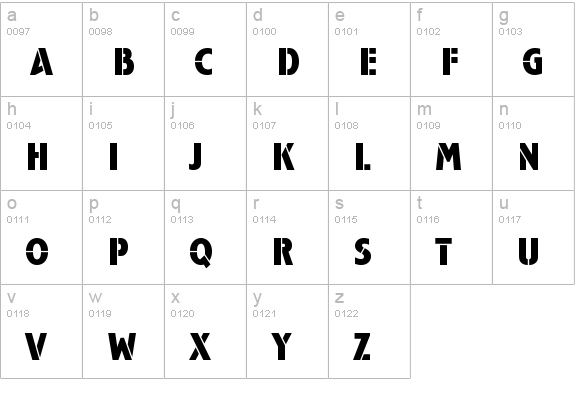
Campaign Std Font Details
Campaign Std is a modern and versatile font that exudes elegance and professionalism. With its sleek lines and sophisticated style, Campaign Std is perfect for a wide range of design projects, from branding to editorial layouts. The font's clean and legible design makes it ideal for both print and digital applications. What's even better is that Campaign Std is available for free download at FontsMarket.com. This means that you can add this stunning font to your collection without any cost, making it a valuable asset for any designer or creative professional. Don't miss out on the opportunity to enhance your projects with the timeless beauty of Campaign Std - download it today and start creating stunning designs effortlessly.